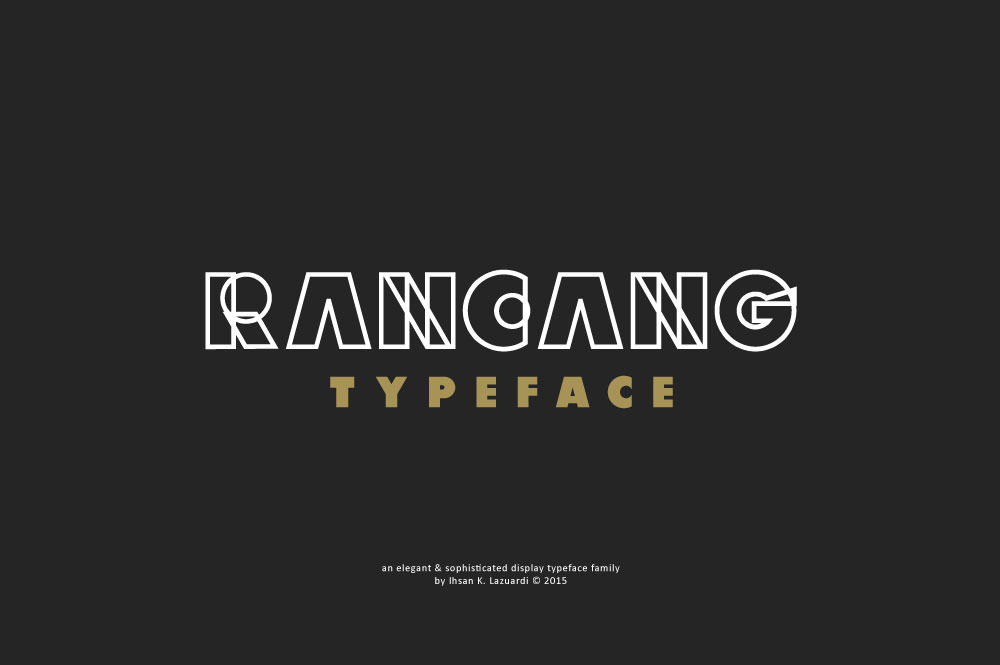
Rancang Typeface
Rancang is a versatile, elegant, geometric and compact sans-serif display typeface that includes four different styles that make up the family; a regular, light, semi bold and bold. For all types of design projects like print materials and web design, with just a little imagination you can watch them come alive.